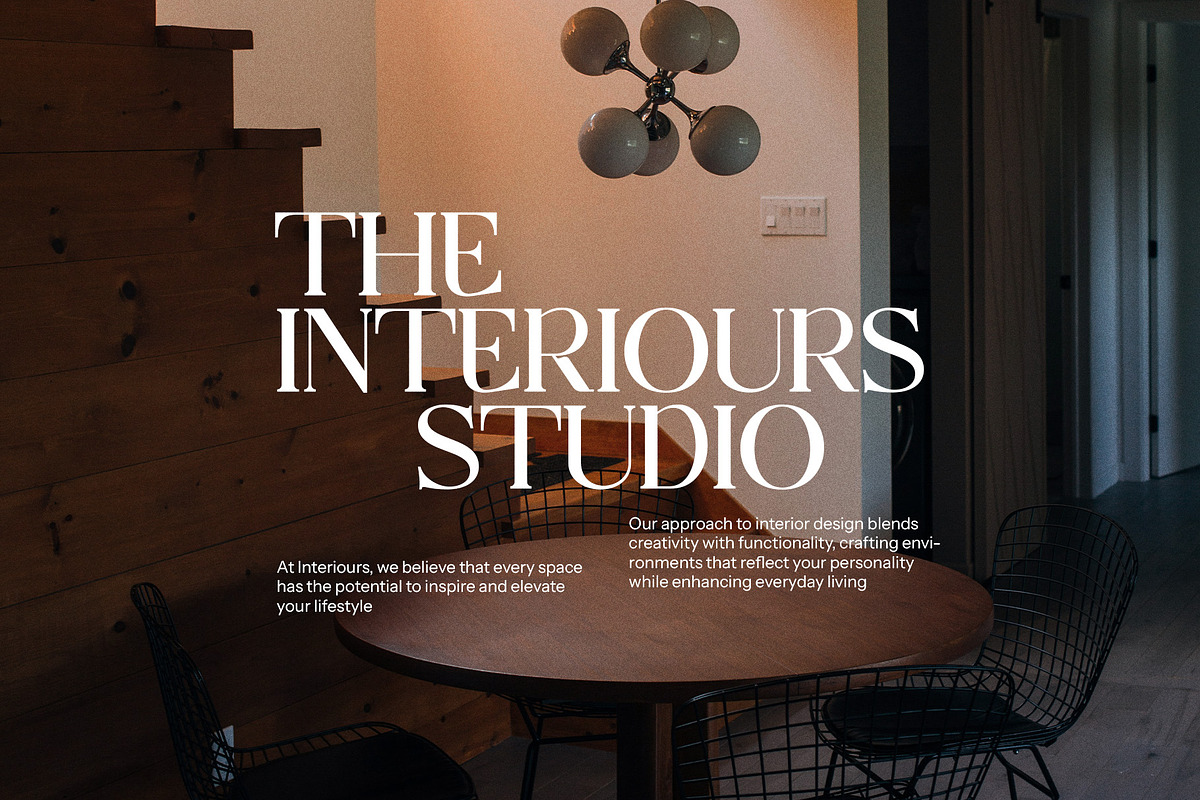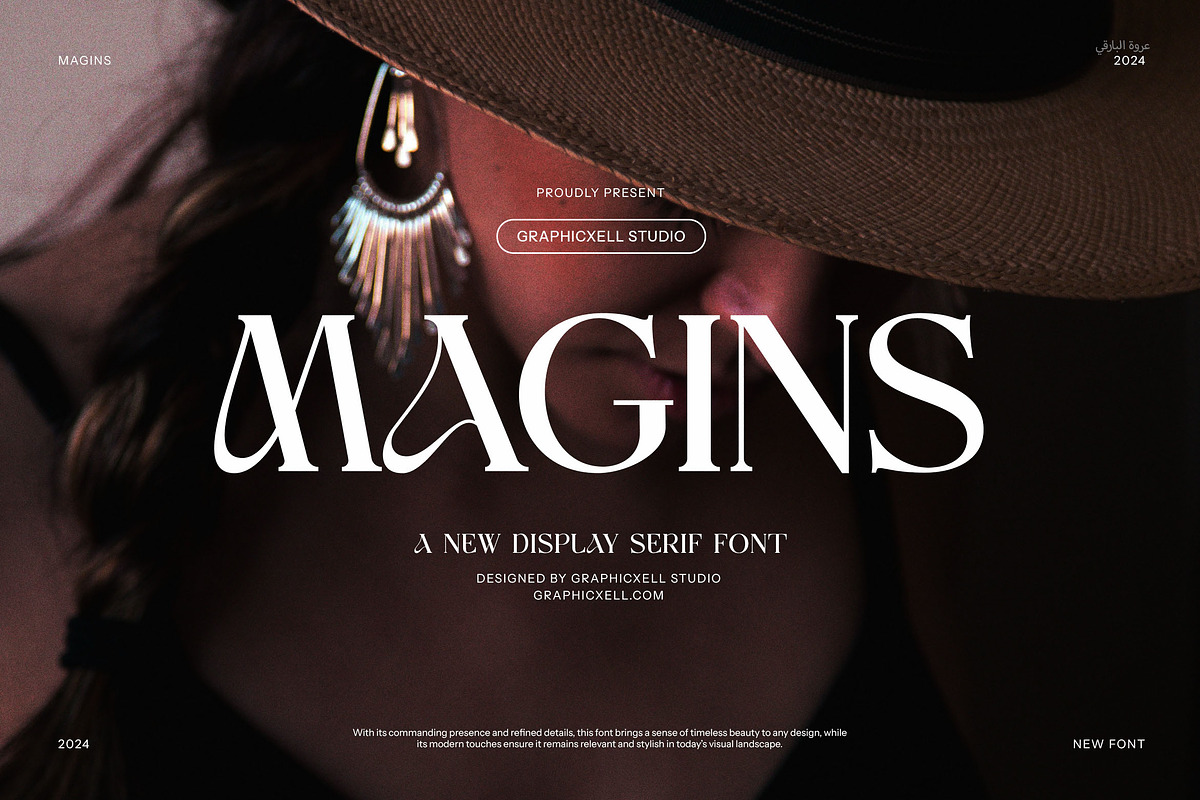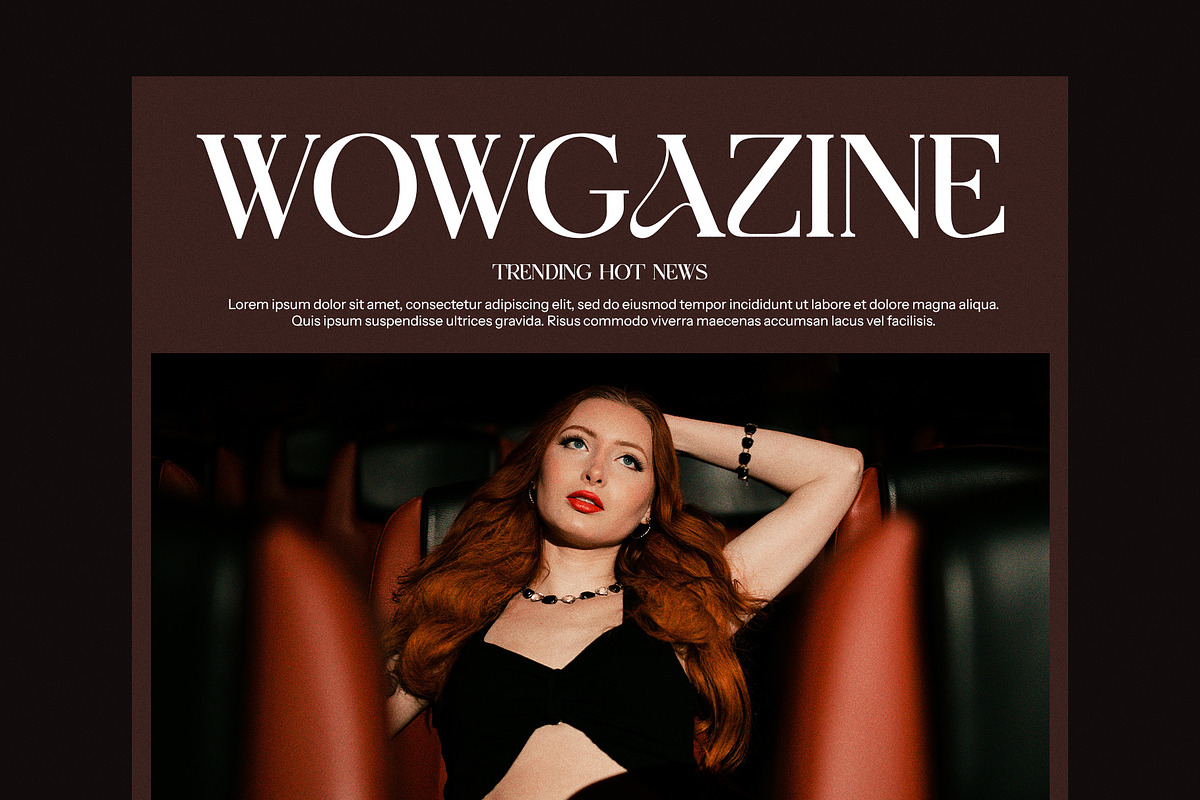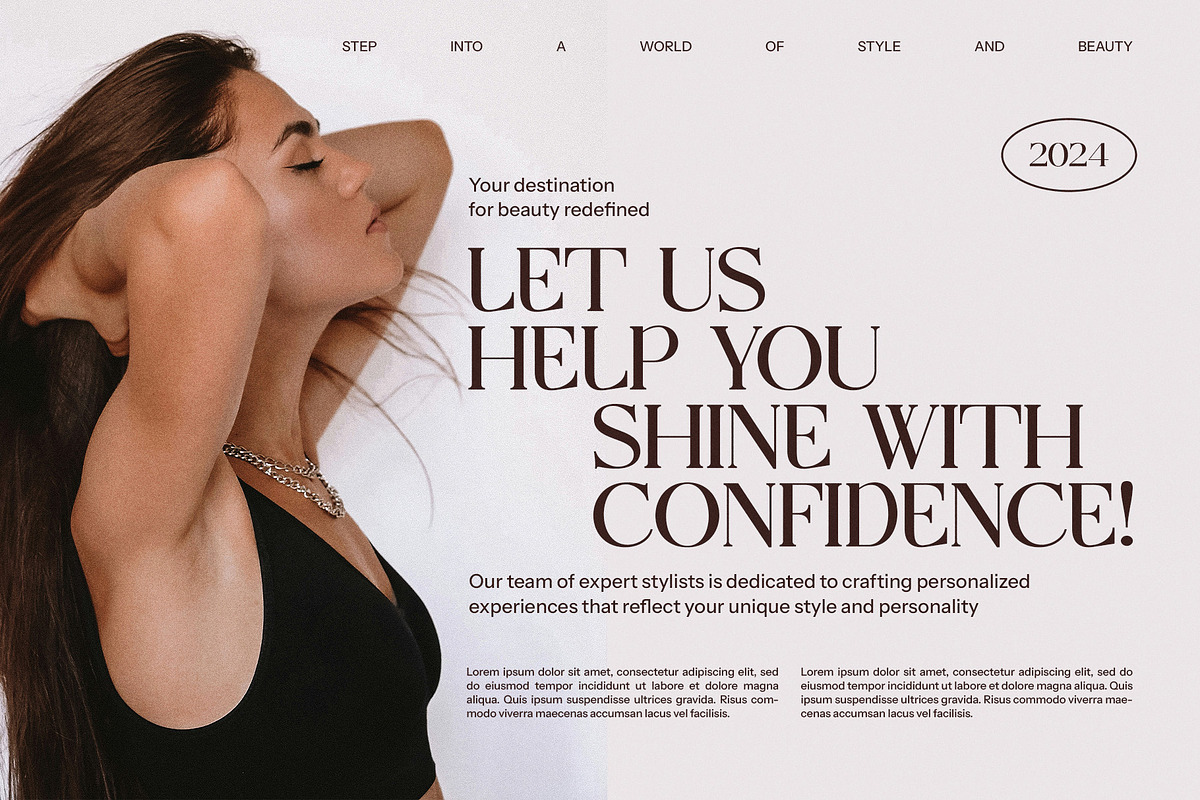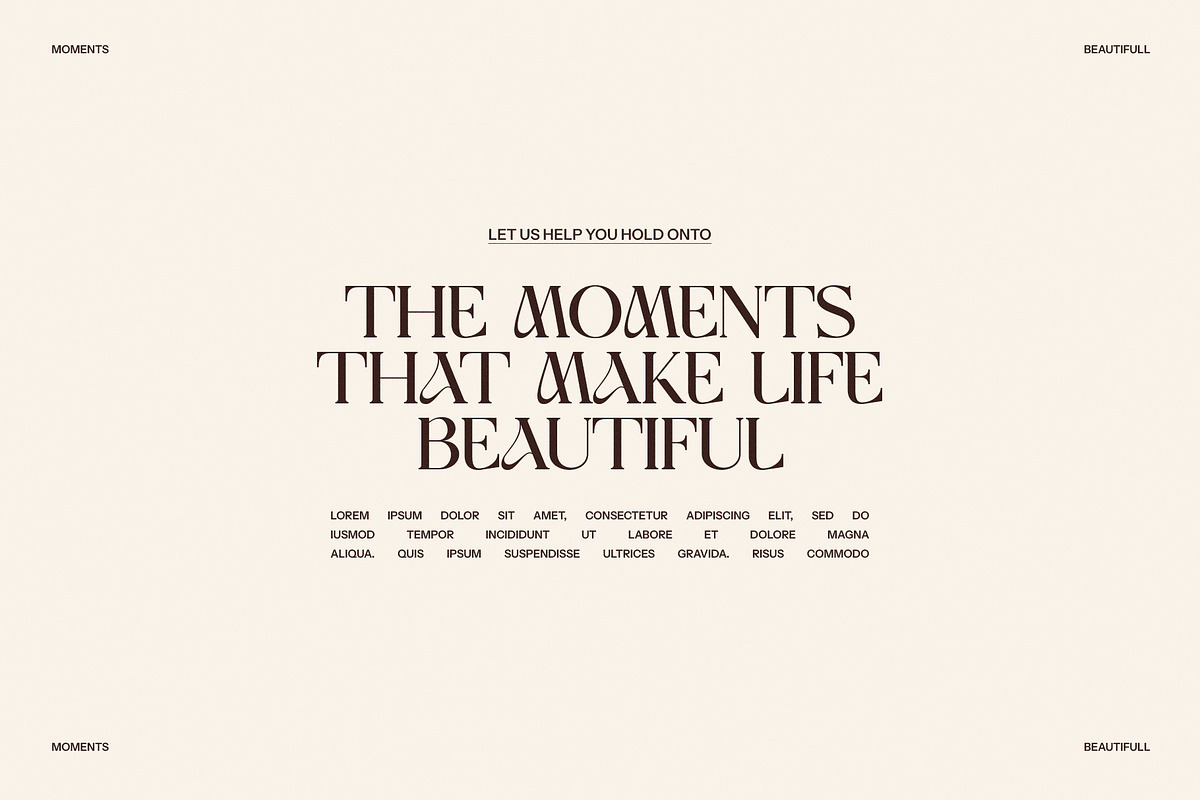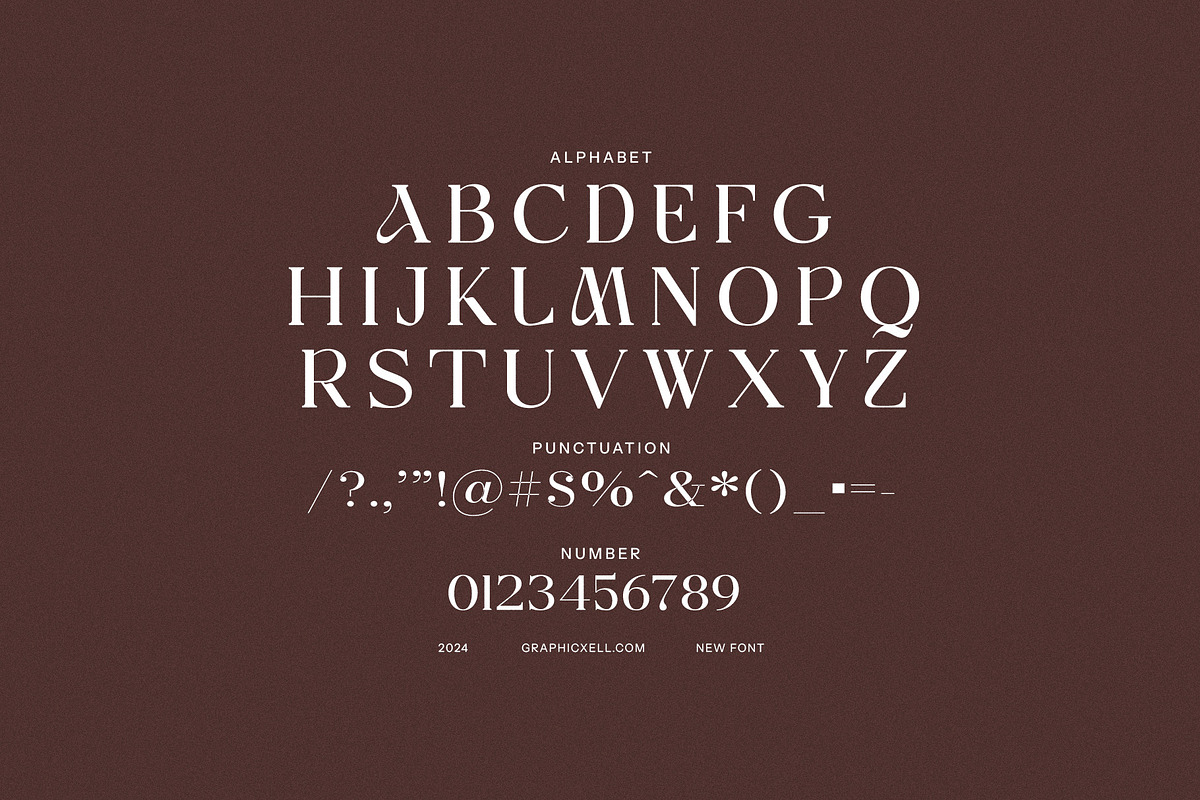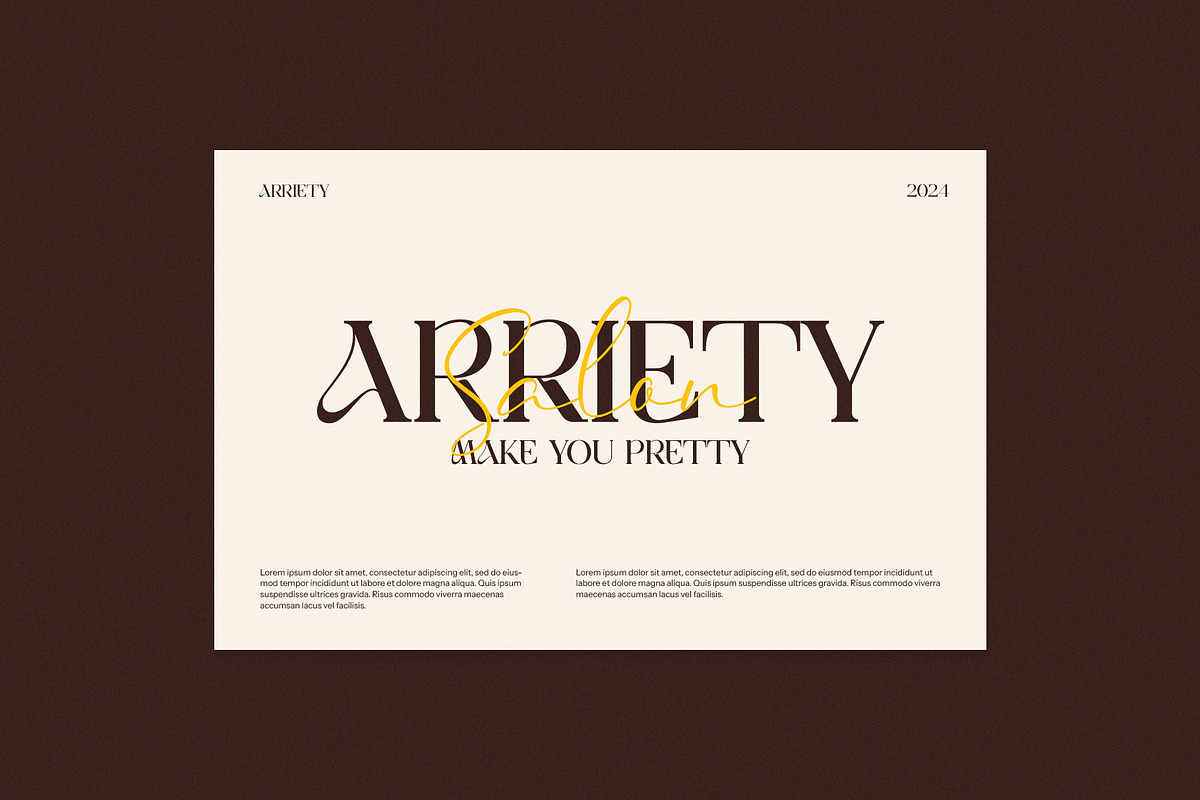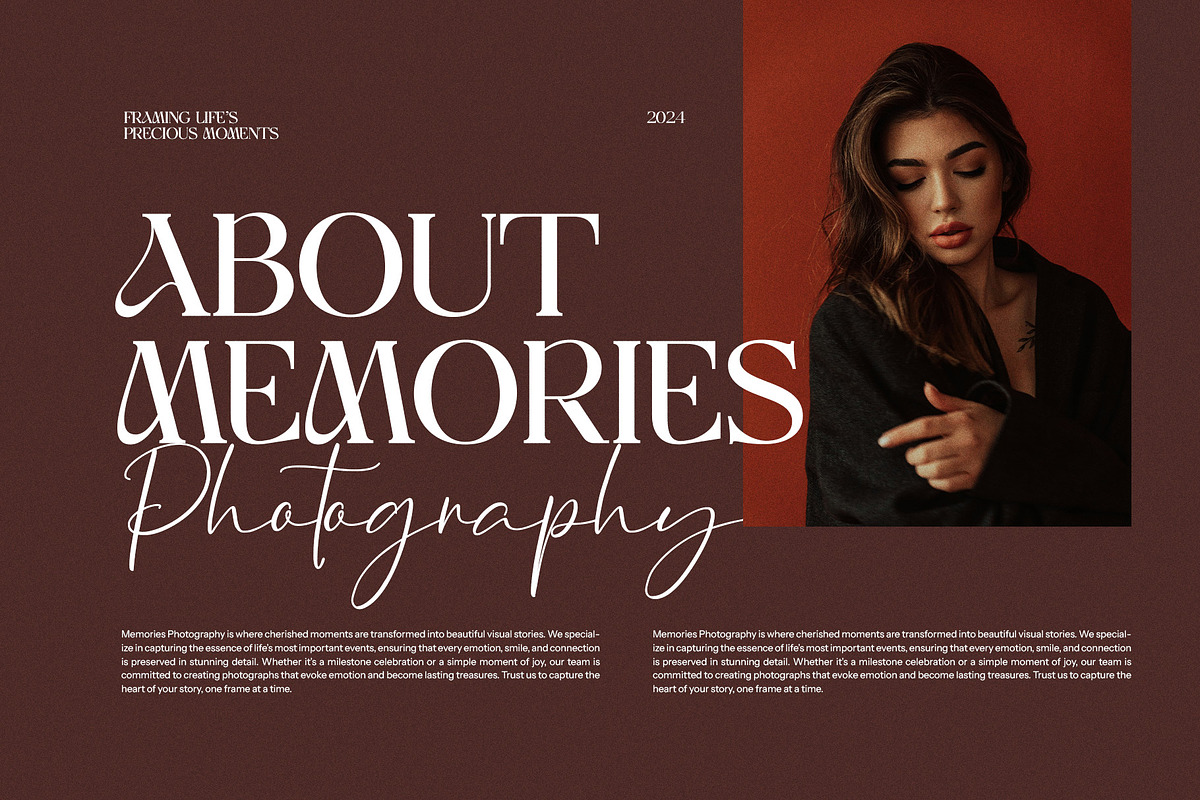
Magins Elegant Serif Font
Magins Elegant Serif Font Typeface is a new serif font that comes with a bold writing style. It looks simple, making the font appropriate for a formal design. The first thing that commands attention is the boldness, creating a strong presence. With its robust quality, this brings a great value to your project. In addition, the solid design really enhances your project’s visual impact. So, the Magins Elegant Serif Font Typeface will be perfect for any graphic designer. The axis adds a uniqueness and creativity on this typeface. However, its simplicity keeps the readability level high. The stunning counterstroke, bracket, and thick & thin lines are blended perfectly, creating an impressive appearance. Whether you want to use it for invitations, photography, wedding designs, or other projects, it will be satisfying, thanks to its elegance. It also has a flexible application where it is suitable for different design styles. With the Strong Elegant Serif Font Typeface, you can make your own classy design.